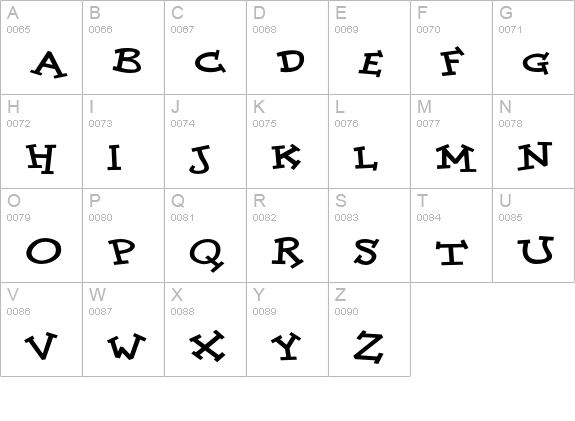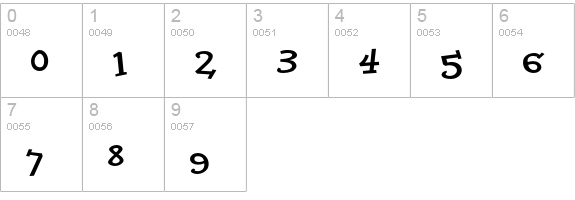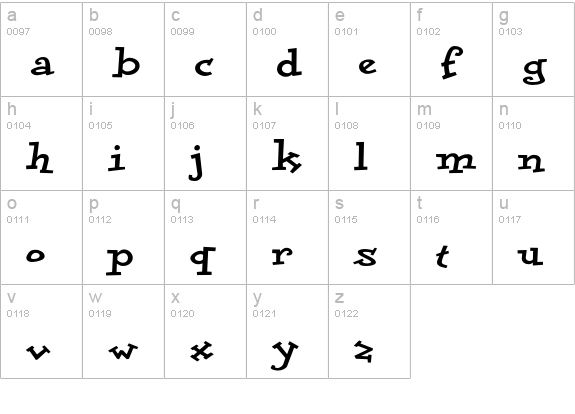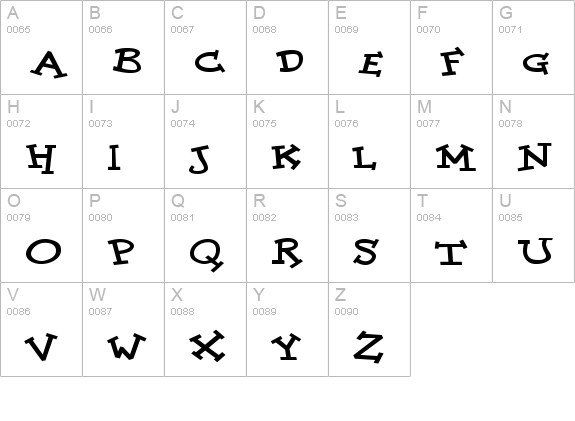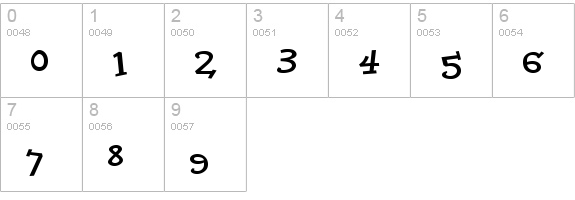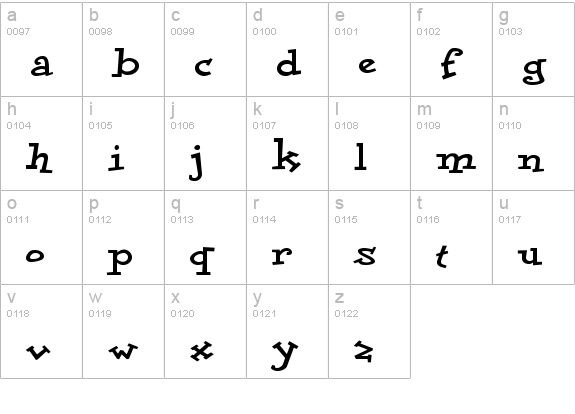
DoloresCyr-ExtraBold Font Details
DoloresCyr-ExtraBold is an extra-heavy, attention-grabbing variant in the DoloresCyr typeface family \xE2\x80\x94 well suited to high-impact headlines, posters, and bold branding.
DoloresCyr-ExtraBold font is a striking and bold typeface that demands attention with its strong presence and distinctive style. Its thick strokes and unique letterforms make it perfect for adding a touch of modern sophistication to any design project. Whether you're creating eye-catching logos, attention-grabbing headlines, or impactful posters, DoloresCyr-ExtraBold is sure to make a statement. The best part? This impressive font is available for free download at FontsMarket.com. Embrace the power and versatility of DoloresCyr-ExtraBold in your next creative endeavor and watch your designs come to life with bold elegance.